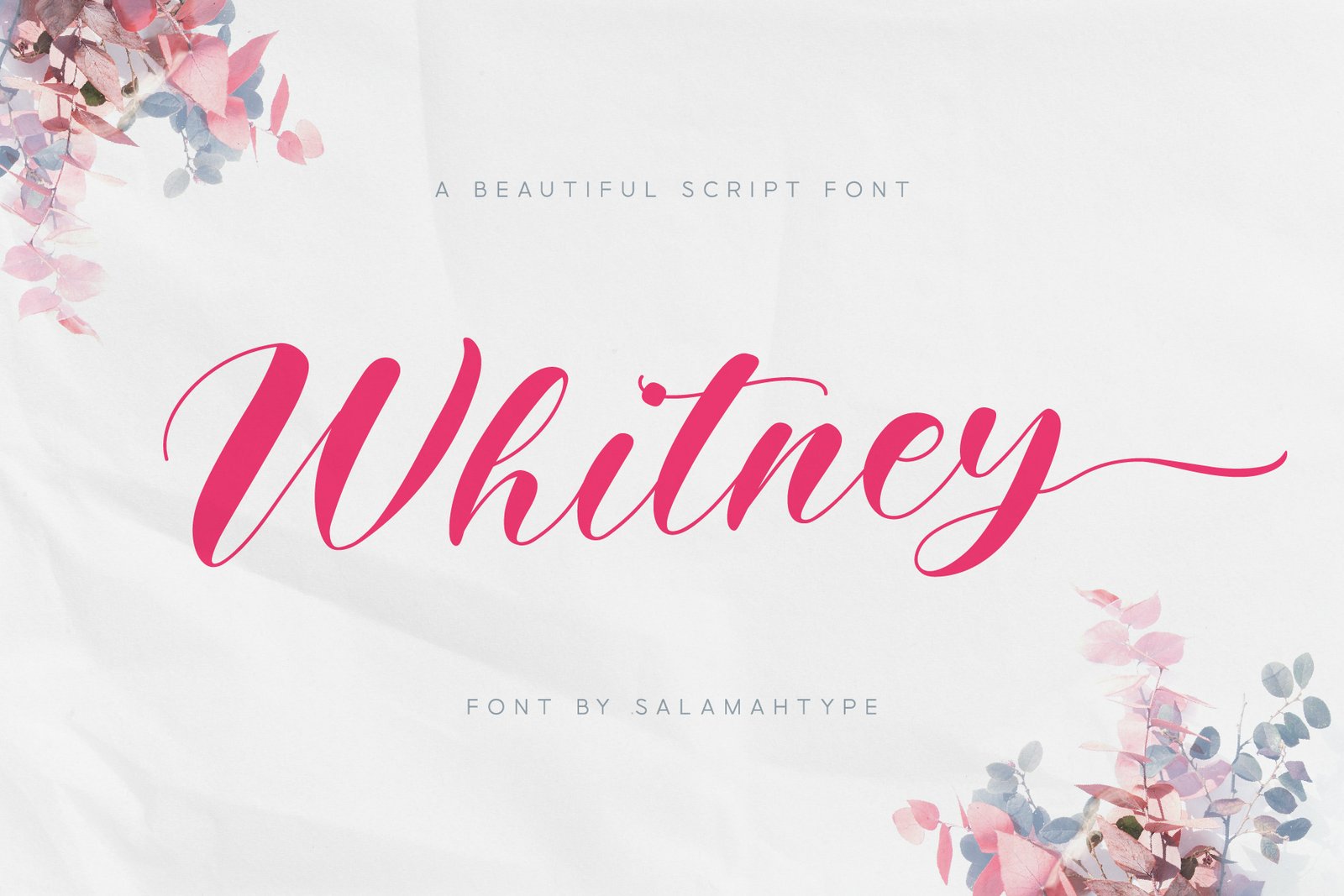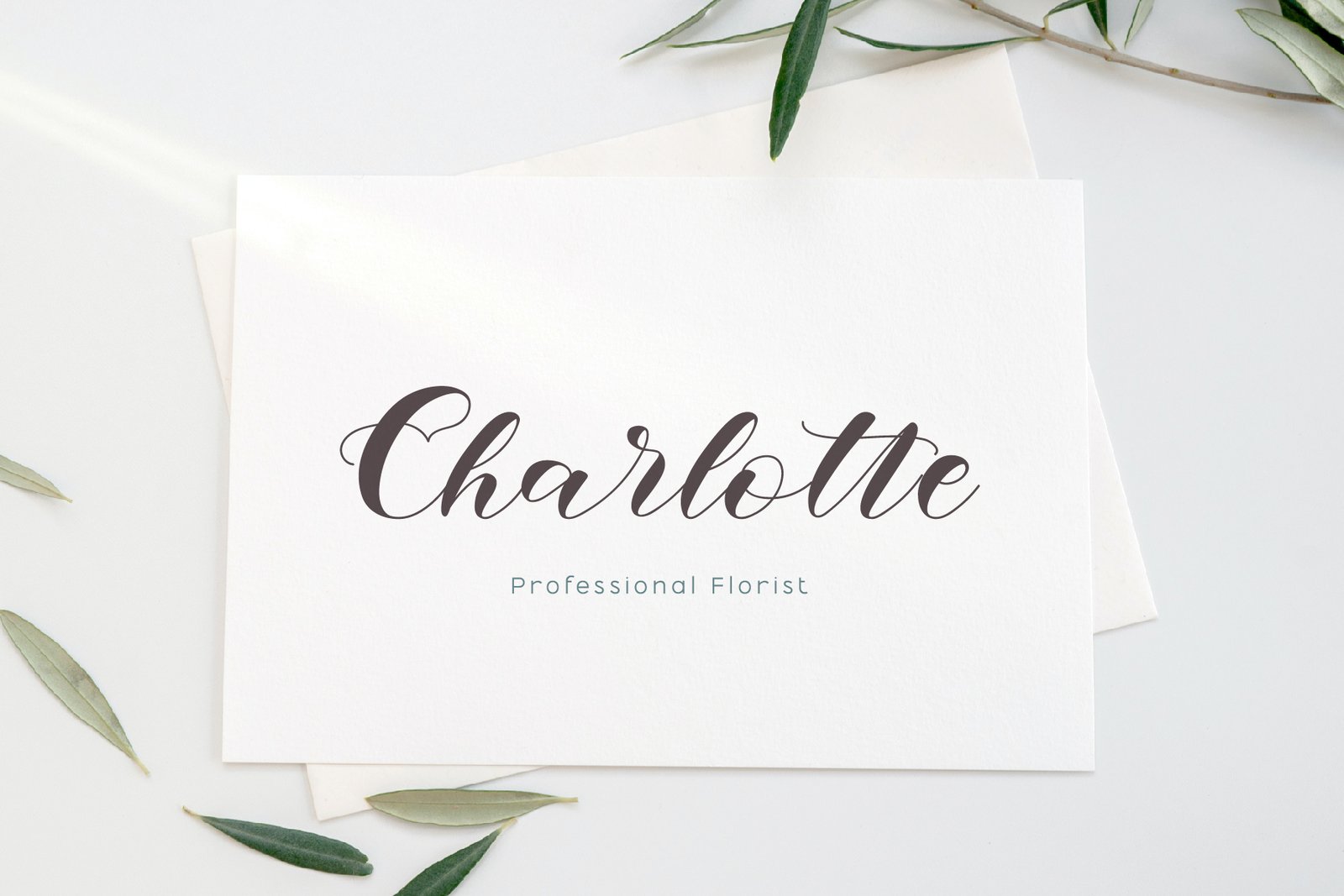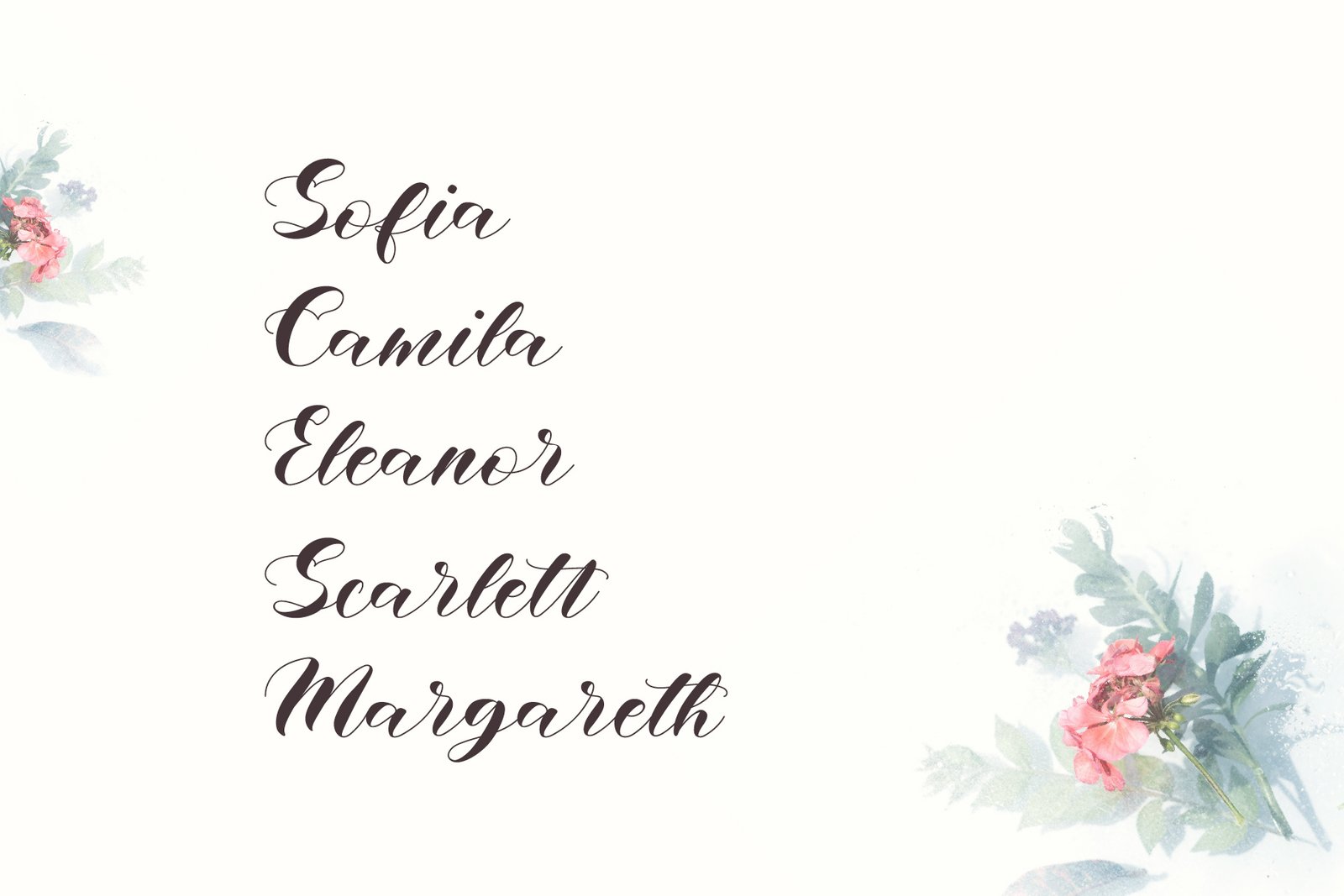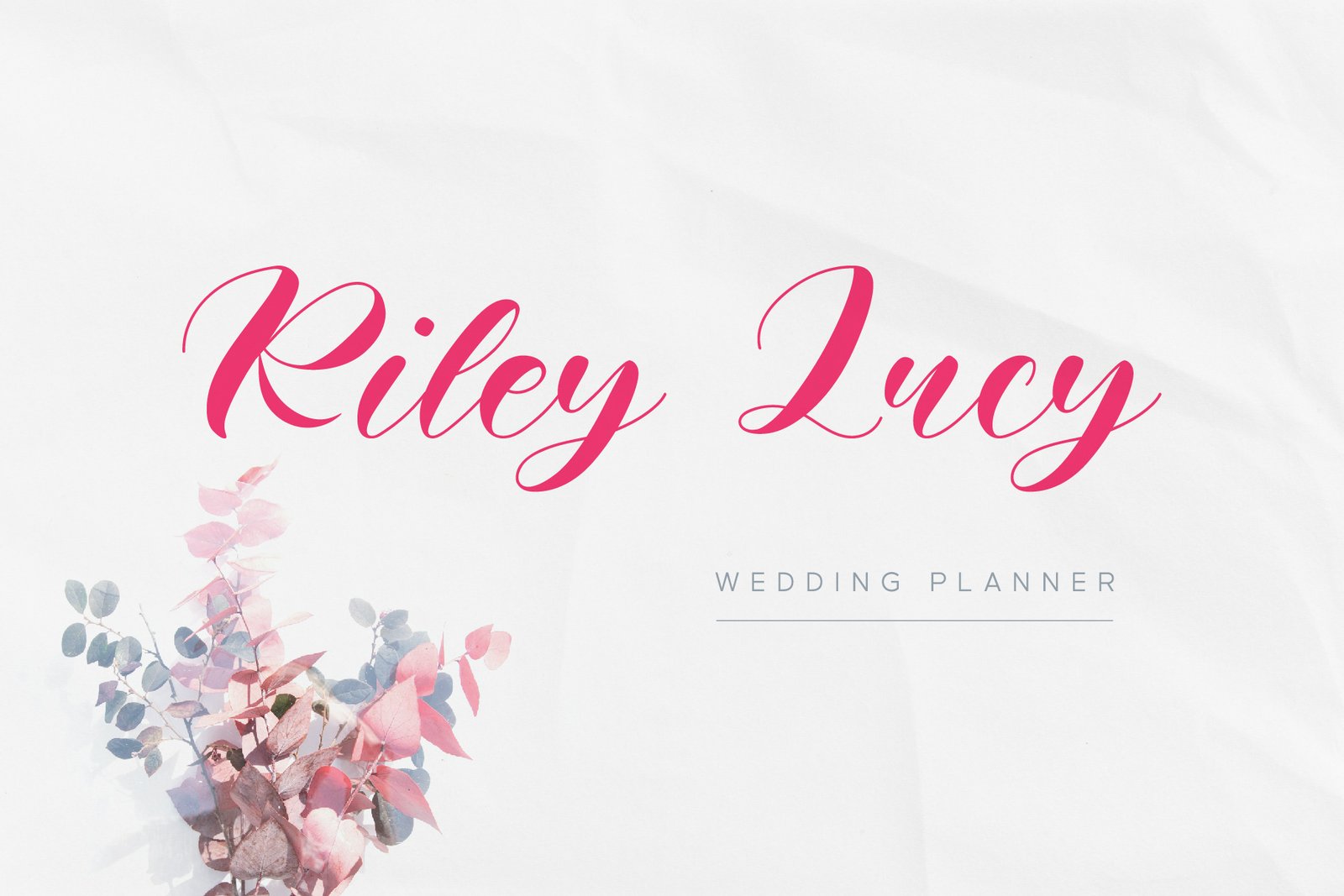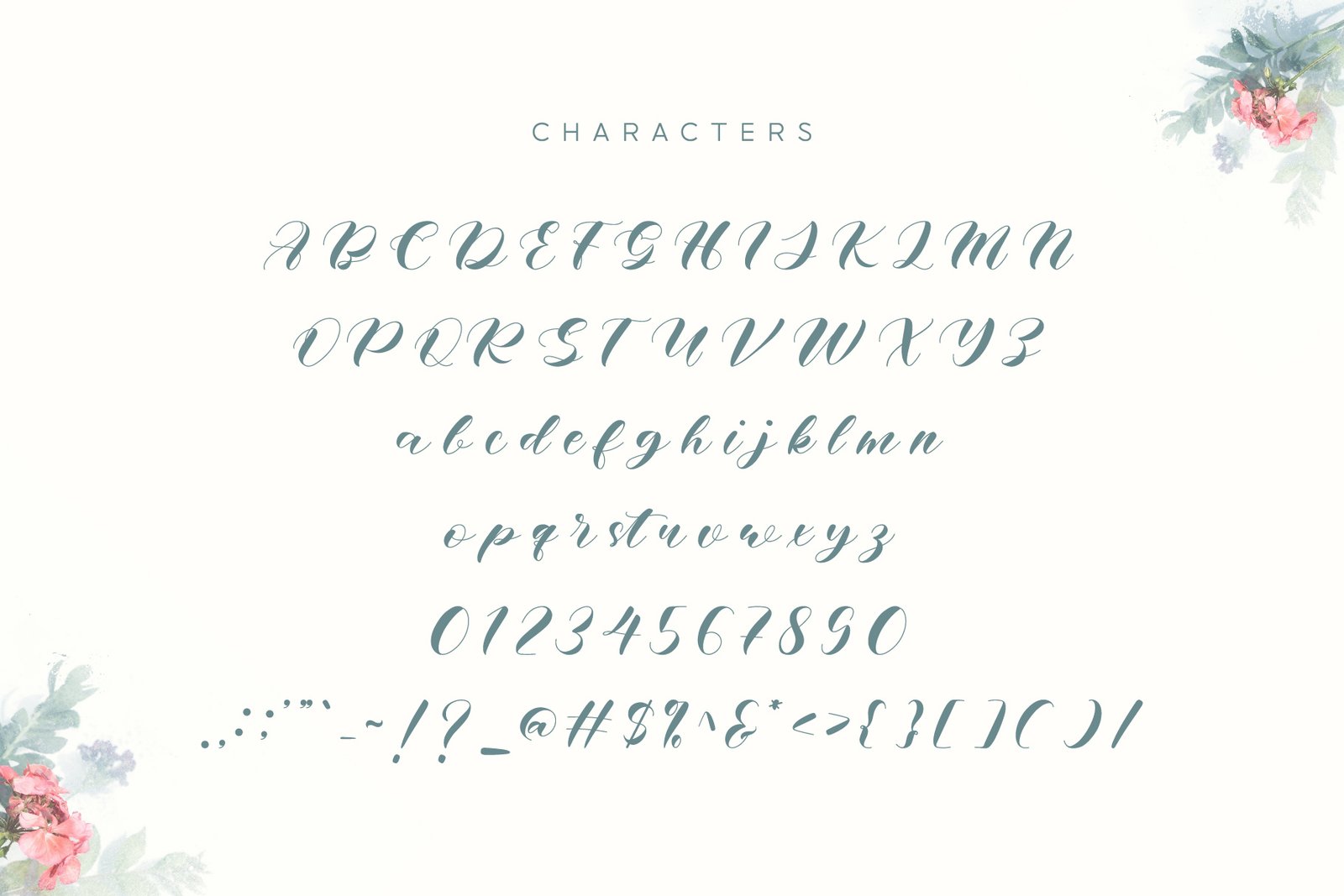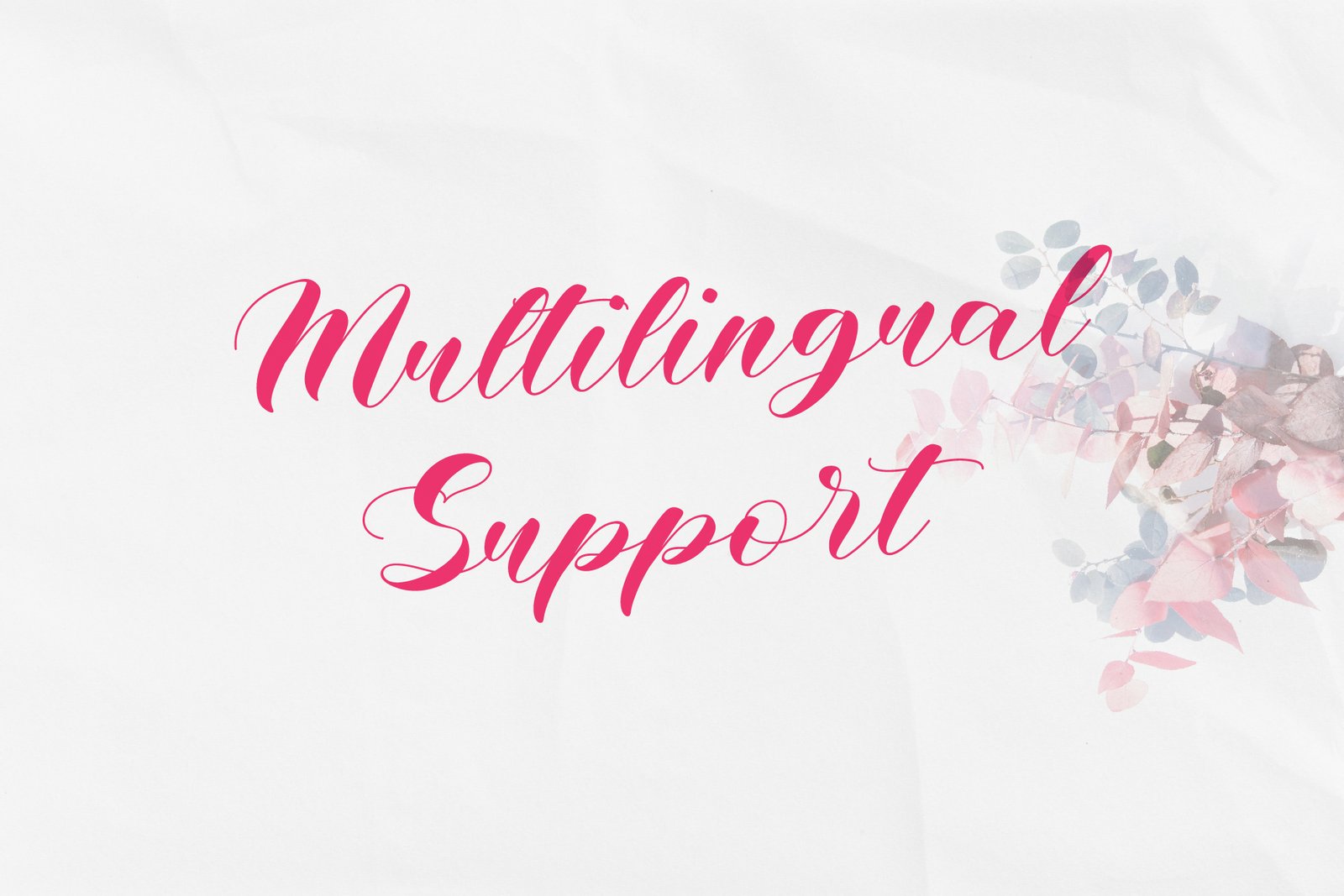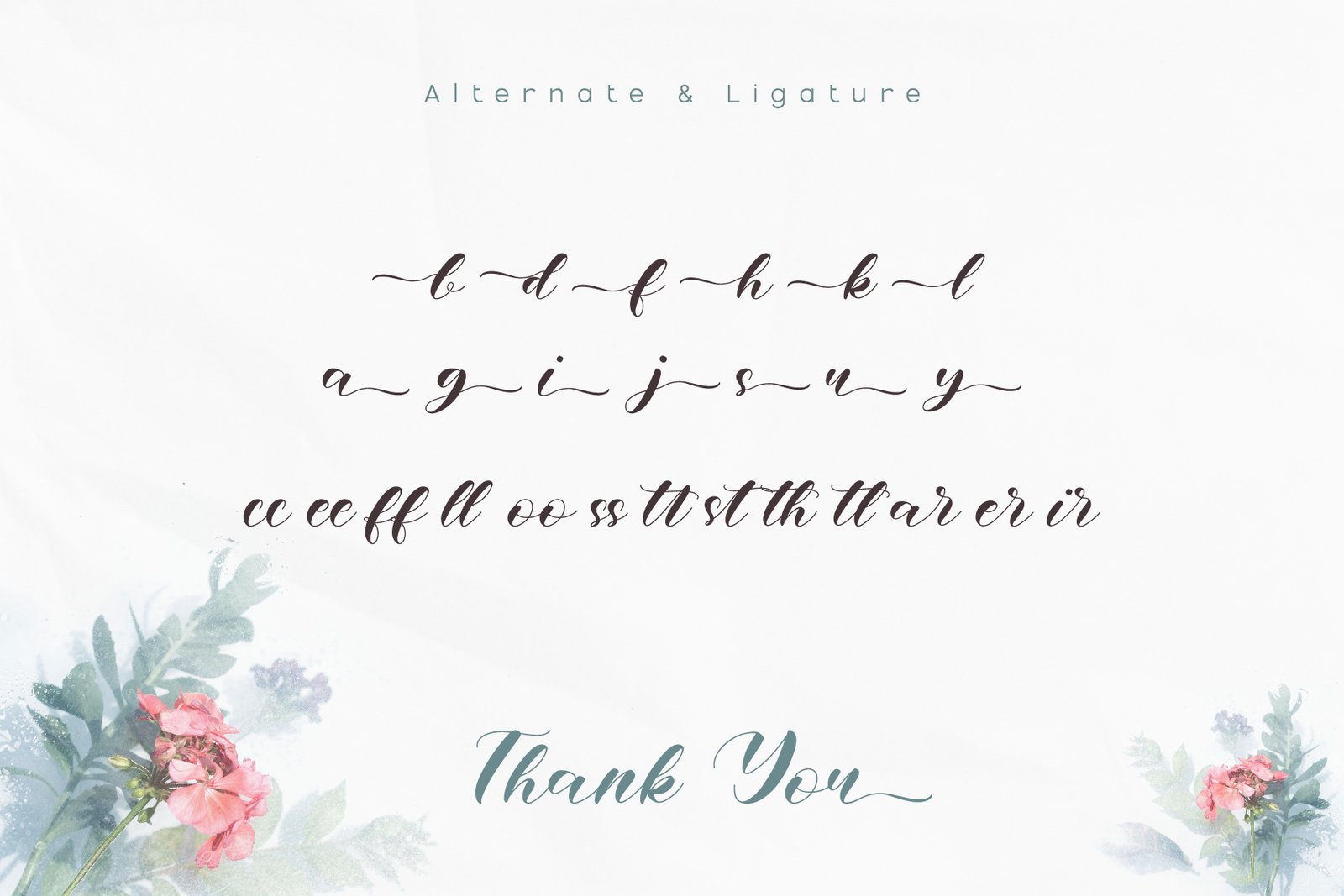
- Whitney
Whitney is a modern script/calligraphy font. This font is perfect for branding projects, logos, wedding designs, product packaging, product designs, labels, invitations, social media posts, ads, merchandise, and more!
- Uppercase & Lowercase
- Numbers and Punctuation
- MULTILINGUAL
- Ligature and Alternate